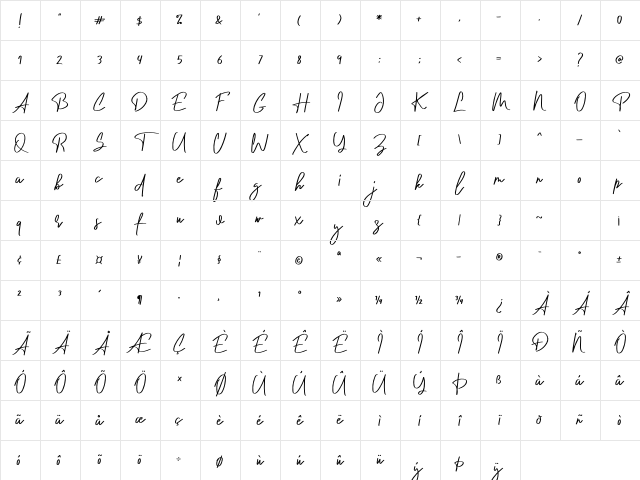
Curly Millie Regular Free Font
Curly Millie Regular
Foundry: Typesthetic Studio - Hamzah Muhamad Ihsan - Jakarta (INA)
Designer: Typesthetic Studio - Hamzah Muhamad Ihsan - Jakarta (INA)
Design Context for Curly Millie
Curly Millie is a composed and adaptable typeface that performs quietly and consistently across a wide range of design contexts.